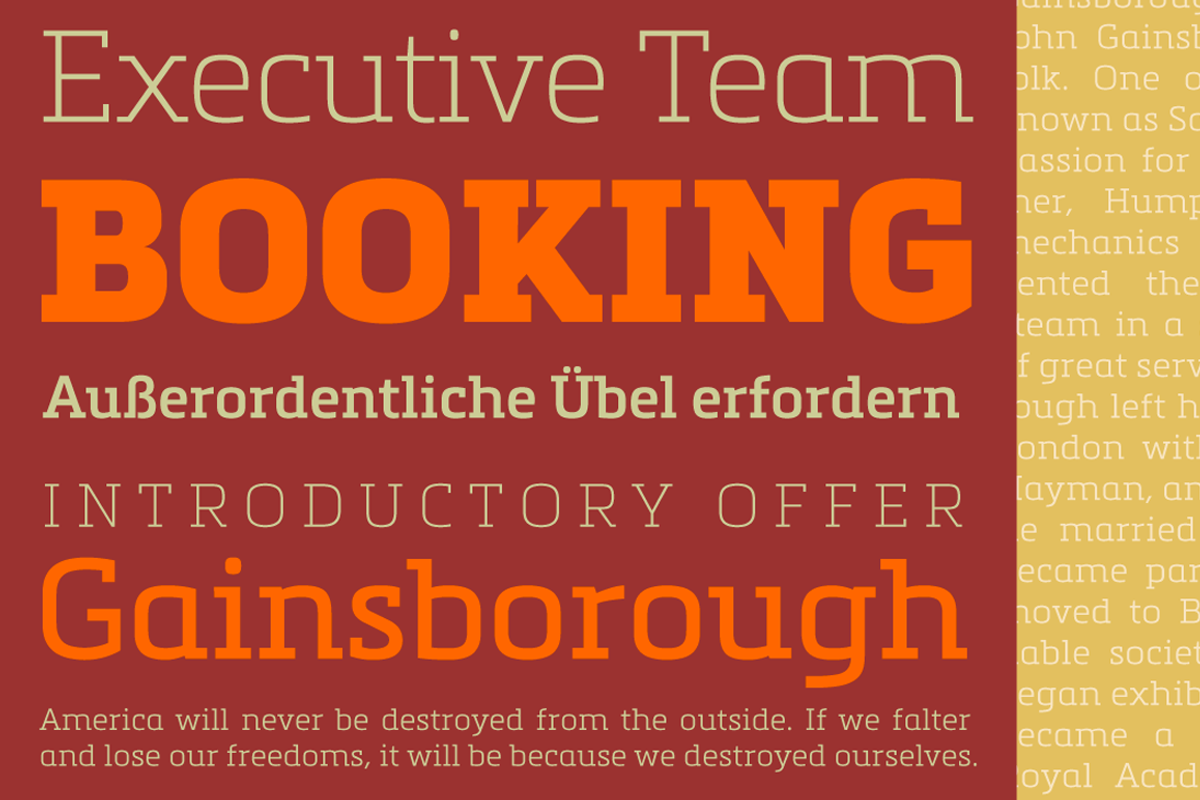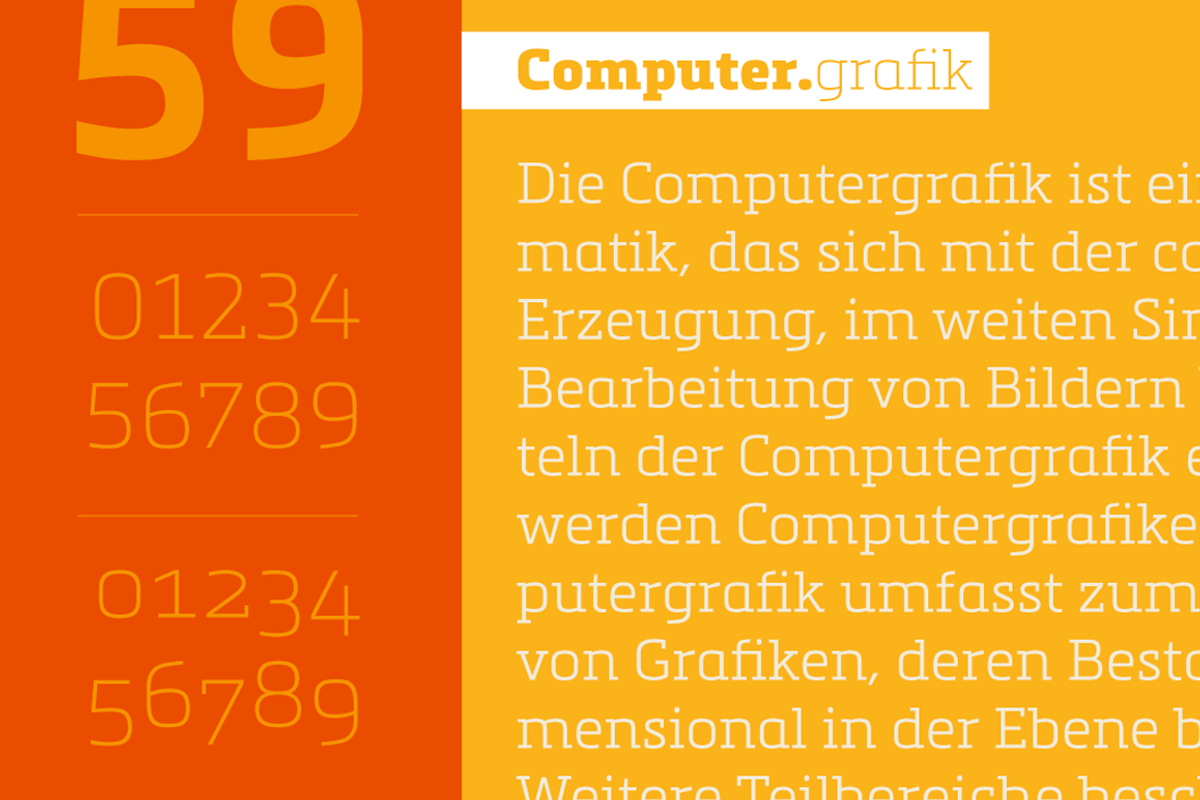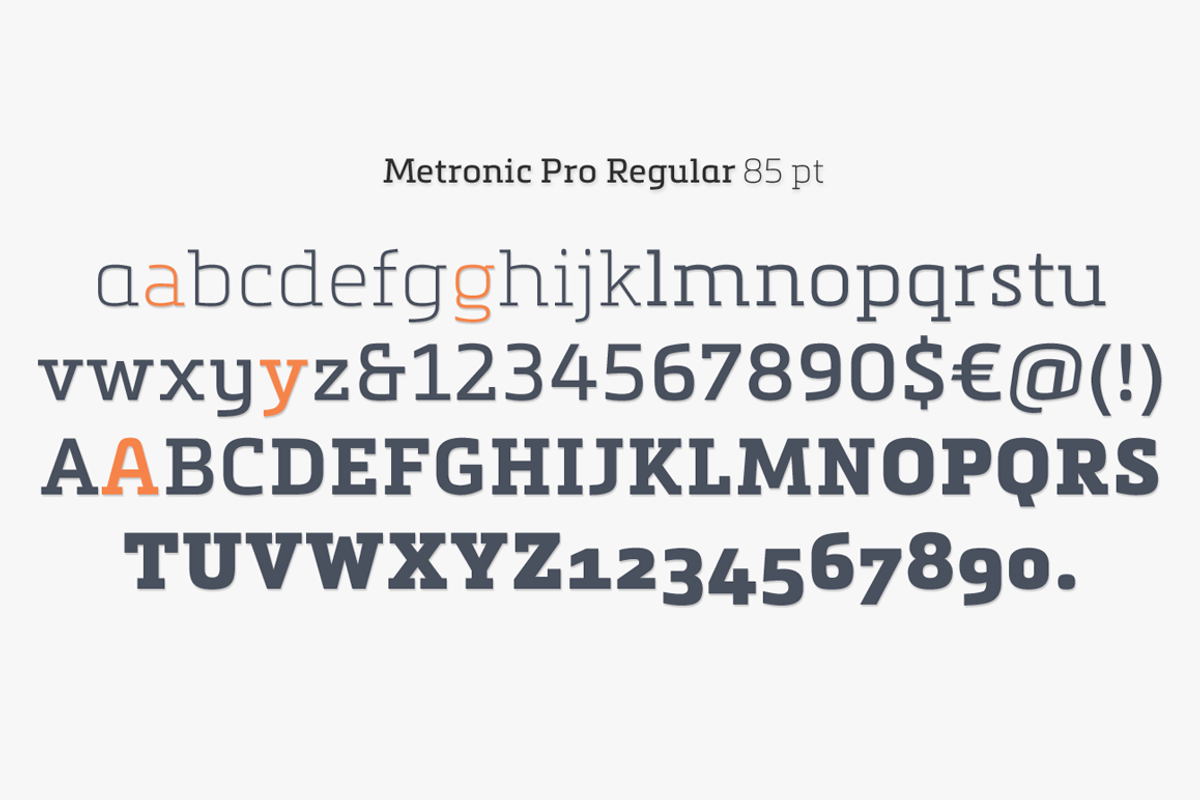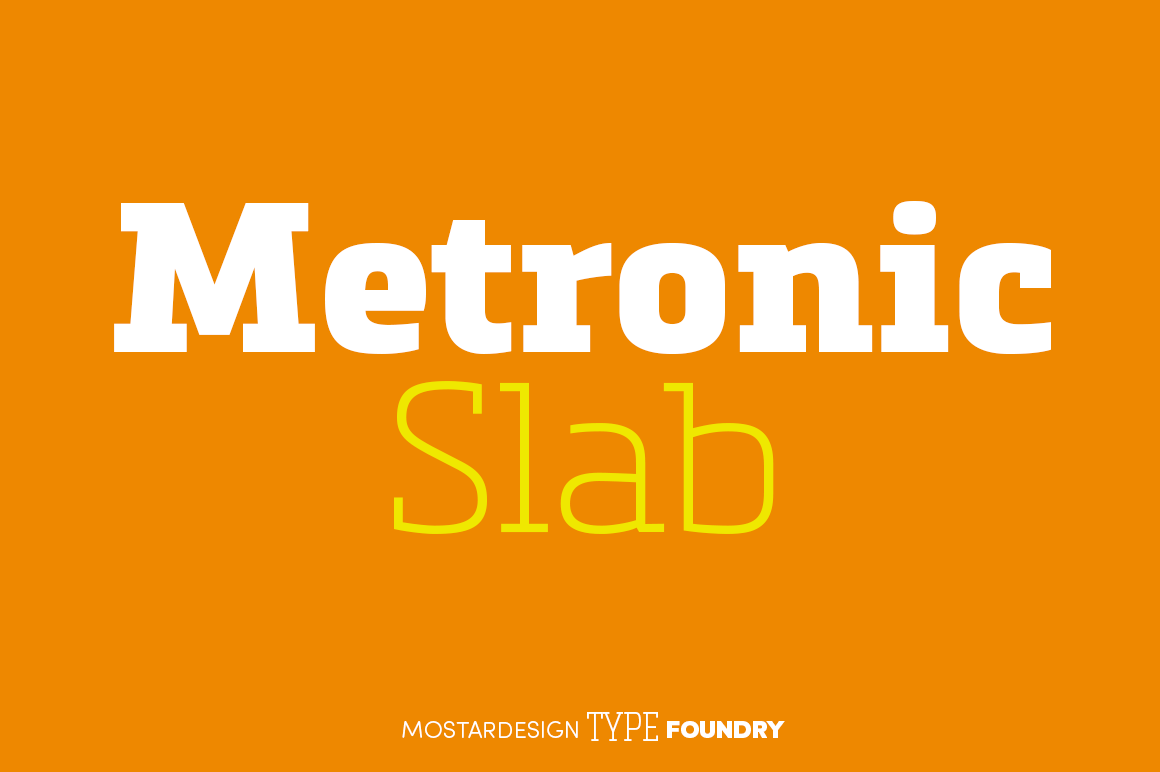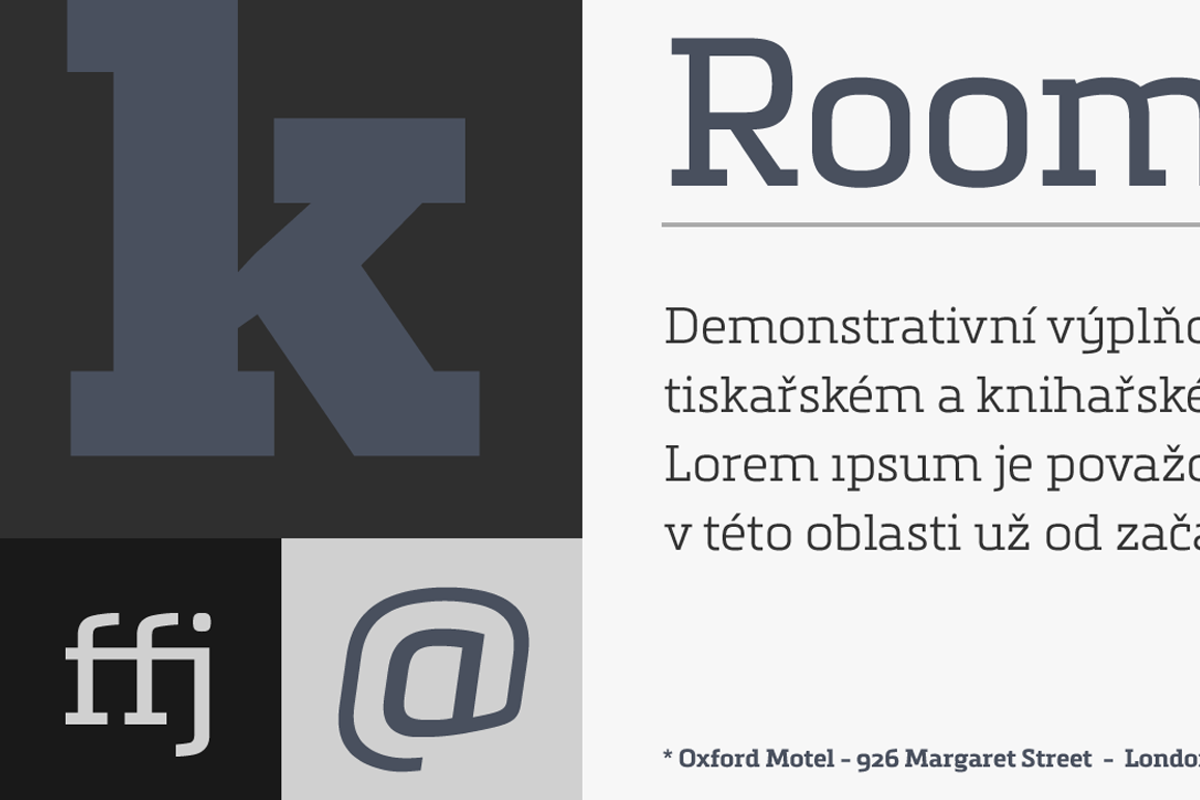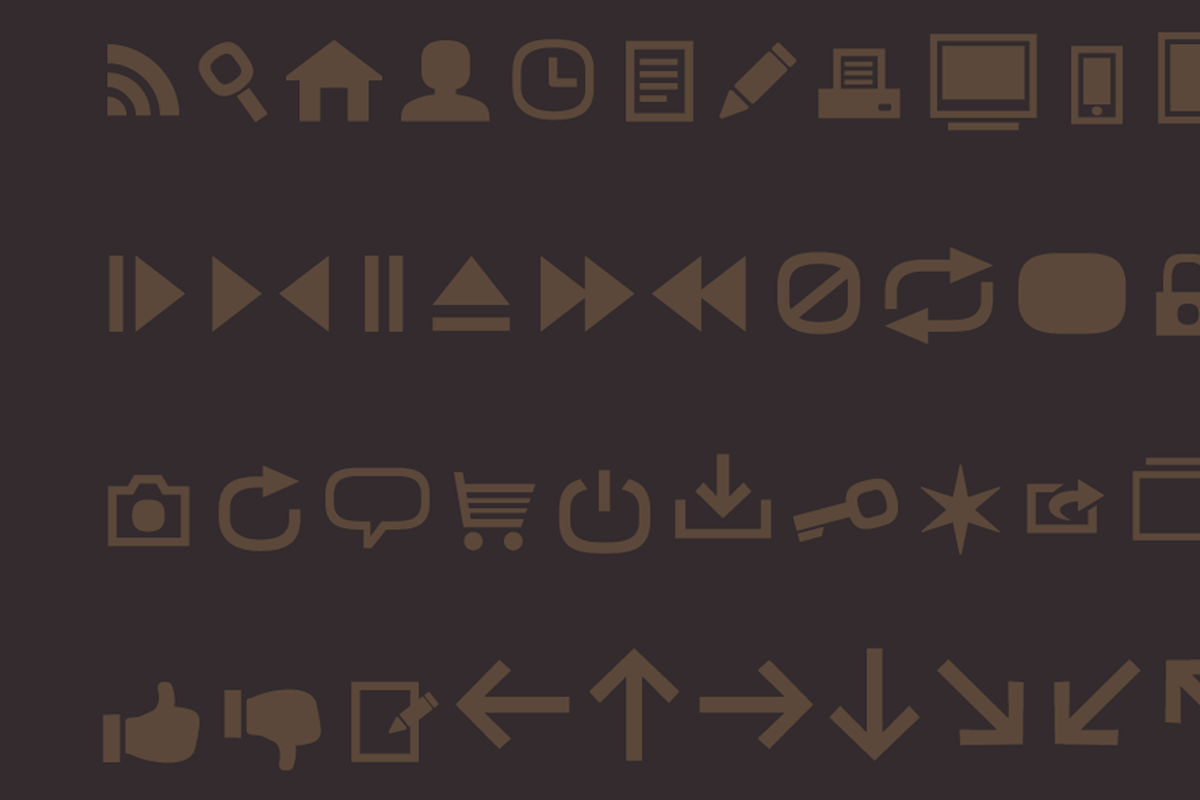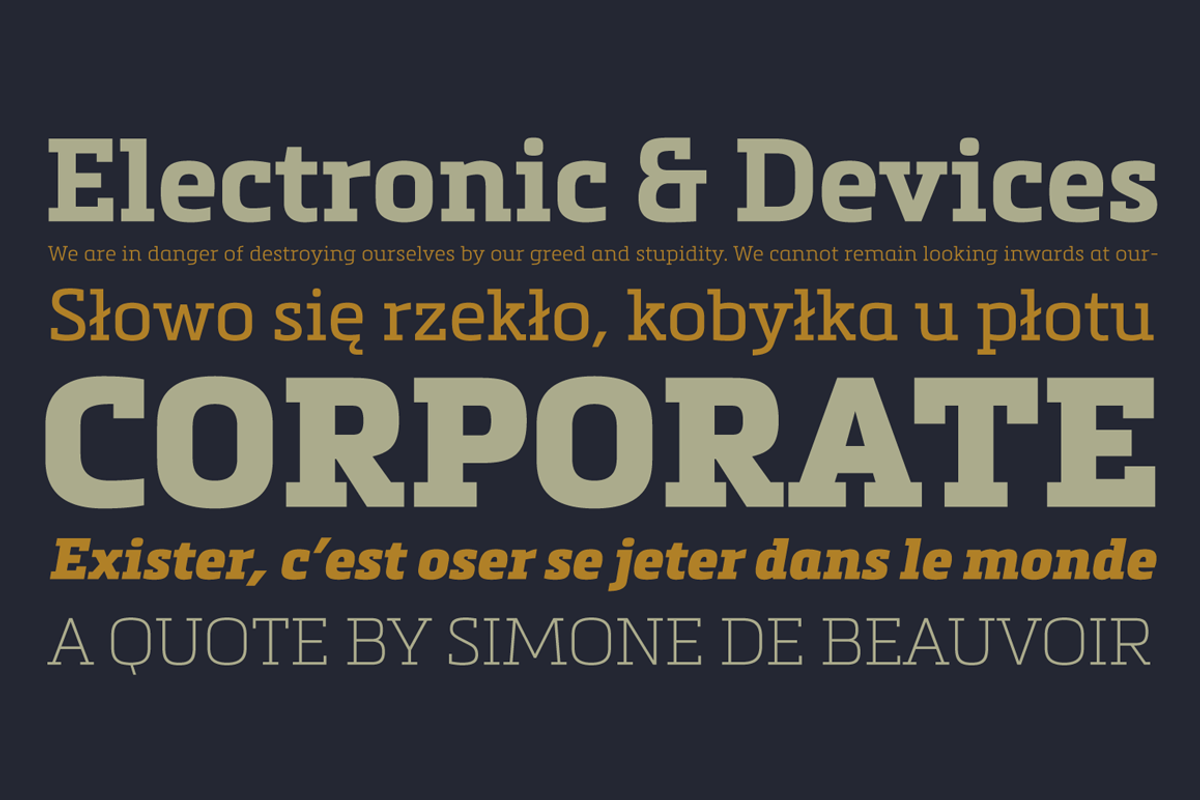
Metronic Slab Family (12 fonts)
Metronic Slab Pro is a slab serif typeface with a technological look for text and headlines. It has six versatile weights from Air to Black with an alternative glyphs set to improve its use in different graphic contexts. Metronic Slab Pro has a wide range of OpenType features such as: old style and proportional figures, ligatures, case sensitive forms, fractions, stylistic alternates, arrows and an icons/ornaments set. This set of 60 icons, directly inspired from the typeface improves the OpenType features and can be quickly and easily use in your web design, GUI design, graphic design or any other graphic work.